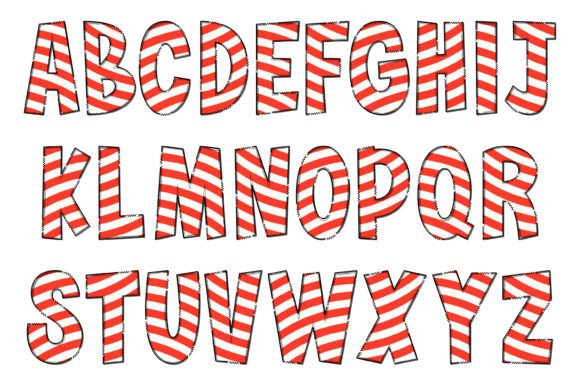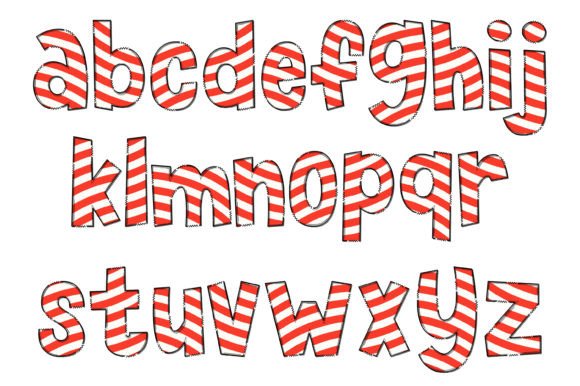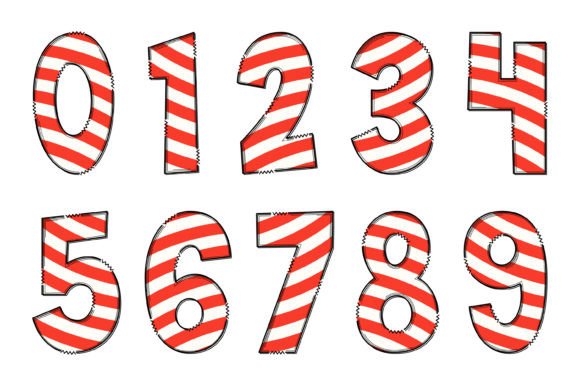
The Magic of Candy Cane Font: A Designer’s Delight
Ah, the joy of designing for the holiday season! I still remember the year I was tasked with creating a festive children’s book, complete with colorful illustrations and a playful font. As I scrolled through my font library, one font caught my eye: Candy Cane Font. Its whimsical, curly letters seemed to scream “holiday cheer” and I knew I had found the perfect fit. In this article, I’ll share my experience with Candy Cane Font, its features, and how to make the most of it in your designs.
What I Love About Candy Cane Font ✨
- ✅ Whimsical and playful: Candy Cane Font is perfect for designs that require a touch of fun and personality, such as children’s books, posters, invitations, and greeting cards.
- ✅ Colorful and vibrant: This font is a color font (Opentype-SVG), which means it comes with a range of colors that can add an extra layer of visual interest to your designs.
- ✅ Easy to read: Despite its playful nature, Candy Cane Font is surprisingly easy to read, making it perfect for young audiences.
The Story Behind Candy Cane Font
Candy Cane Font was inspired by the classic holiday treat, with its red and white stripes and whimsical shape. The font’s designer wanted to capture the magic and playfulness of the holiday season in a font that would bring joy to designers and their audiences. And, with its colorful, curly letters, Candy Cane Font is sure to add a touch of festive fun to any design project.
| Font Name | Candy Cane Font |
| Author | Imagination Switch |